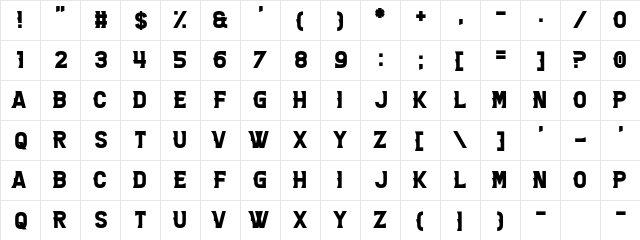
Go Everywhere Regular
| Designer | Allison James |
Design Context for Go Everywhere Typeface
Go Everywhere offers clean, dependable letterforms without strong stylistic allegiance, making it a practical choice for designers who need flexibility.